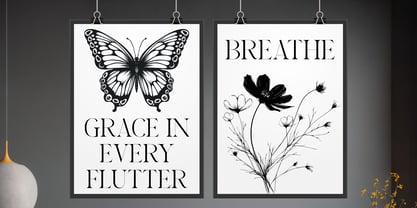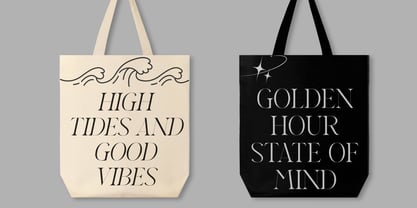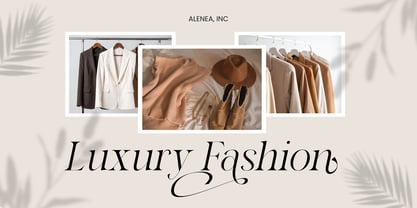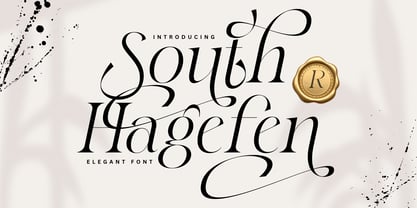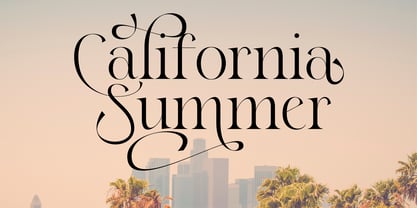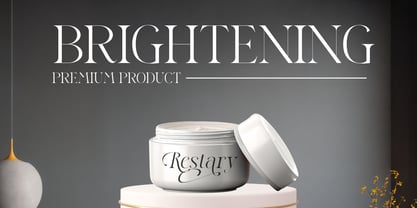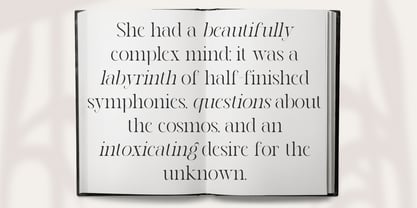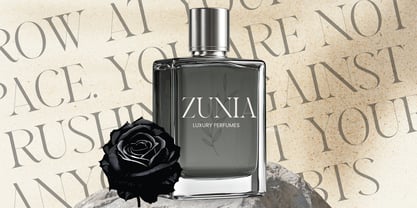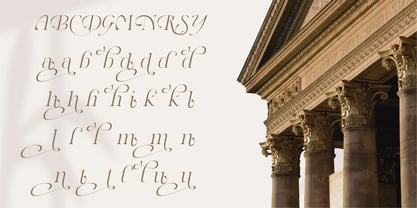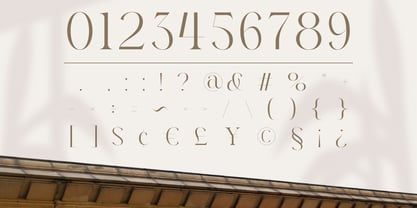
South Hagefen
von Rvandtype
Die Schriftfamilie South Hagefen wurde von Randi Irvan entworfen und von Rvandtype veröffentlicht. South Hagefen enthält 2 Stile und Familienpaketoptionen. Mehr über diese Familie
Introducing South Hagefen, an elegant and sophisticated serif font that adds a touch of classic luxury to your creative projects. This font is a harmonious blend of clean Didone aesthetics and free-flowing calligraphic strokes, making it the ideal choice for high-end branding, luxurious invitations, and fashion editorial designs. Inspired by the elegance of classical architecture and copperplate calligraphy, South Hagefen offers a captivating duality: the structured simplicity of a high-contrast serif combined with the dramatic flair of intricate ornamental swashes. Perfect for enhancing your designs with a timeless and refined appeal.
Designer: Randi Irvan
Foundry: Rvandtype